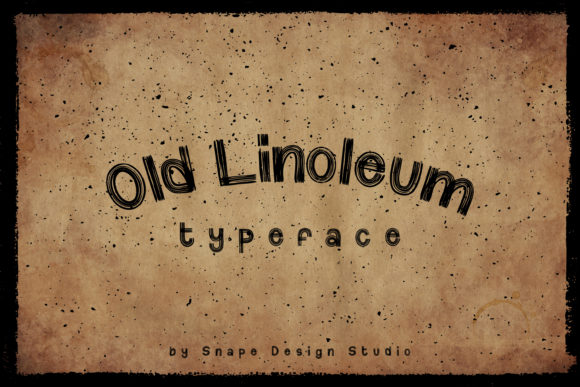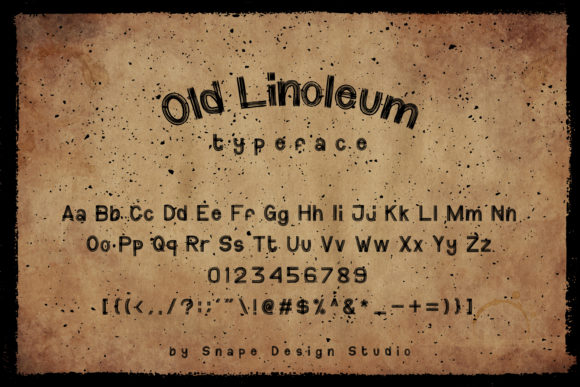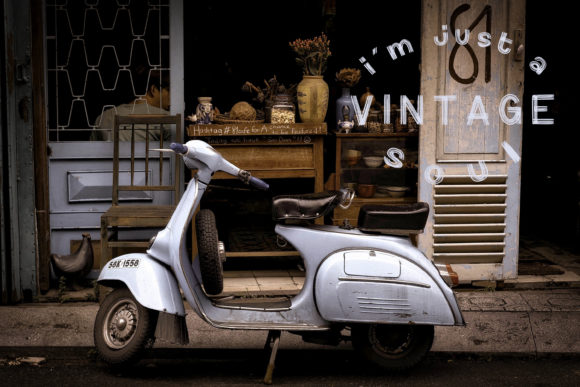
Old Linoleum
About Old Linoleum Font
Old Linoleum is an incredibly interesting and simple display font. It has a chalked, vintage design, and its versatility makes it fit for a wide variety of creative ideas.